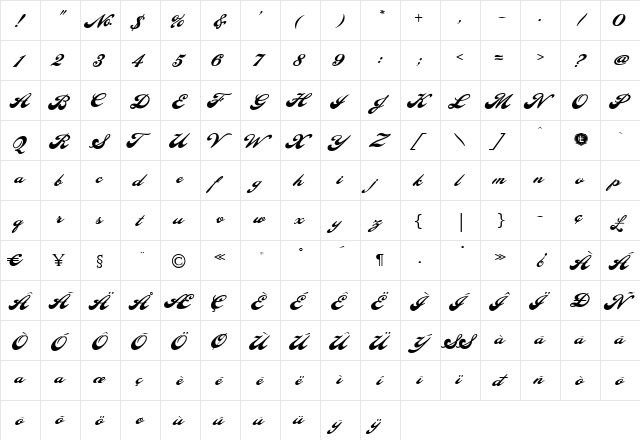
Pilsner Alternates Lhf Regular
Design Context for Pilsner Alternates Lhf Typeface
Pilsner Alternates Lhf is a composed and adaptable typeface that performs quietly and consistently across a wide range of design contexts.